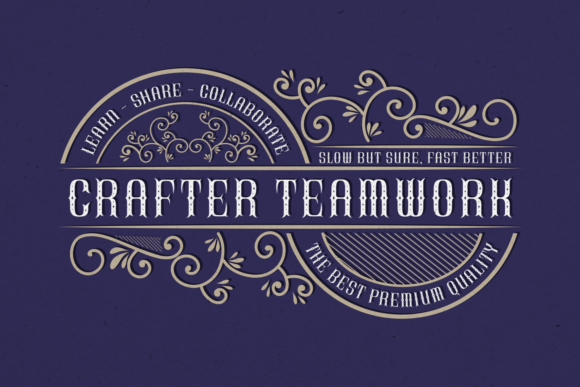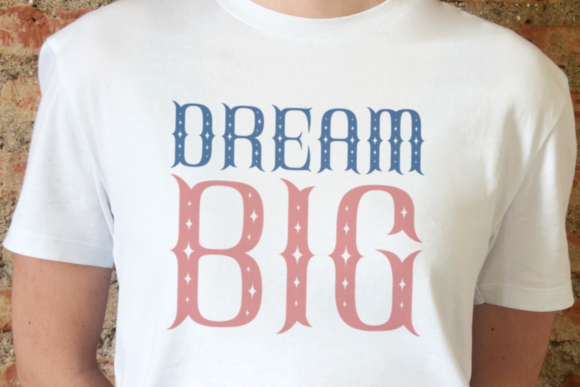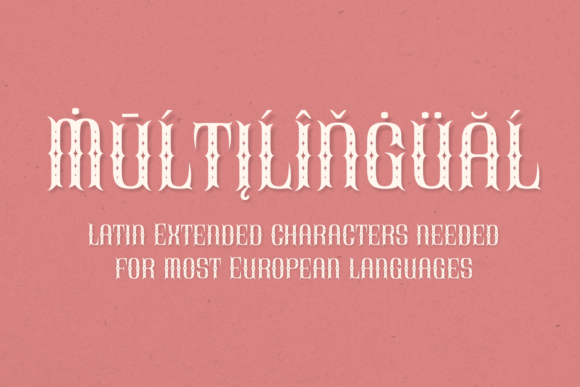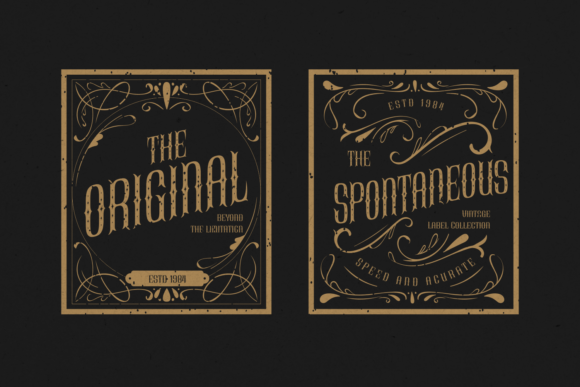
Introduction to Maxonie Font
Have you ever stared at a blank canvas, desperately searching for the perfect font to bring your creative project to life? That’s exactly how I felt until I discovered the stunning Maxonie Font. This bold, cool, and assertive blackletter font is the ultimate game-changer for designers looking to make a statement.
What sets Maxonie Font apart is its versatility and high quality, making it an ideal choice for a wide range of design projects, from posters and flyers to brochures and business cards. Whether you’re working on a free download or a paid design resource, Maxonie Font is sure to impress with its sleek and modern design. Plus, its transparent background allows for seamless integration with any image or design element.
As a valuable addition to any designer’s toolkit, Maxonie Font is a must-have for anyone looking to elevate their creative projects and take their designs to the next level.
Key Features of Maxonie Font
- High-quality font design suitable for creative projects
- Available for free download with a transparent background
- High-resolution design, perfect for use in digital and offline projects
- Maxonie Font is a valuable design resource for designers and artists
- Compatible with most operating systems and software applications
Honest Review: Maxonie Font
I recently came across the Maxonie Font, a free download that’s been gaining popularity among designers. After giving it a try, I’d like to share my thoughts on this design resource.
- The Maxonie Font has a unique, hand-drawn feel that’s perfect for creative projects.
- The font is available in a range of weights, from light to bold, making it versatile for various design applications.
- The transparent background feature allows for easy layering and customization, which is a big plus for designers.
- The high-quality design ensures that the font looks great on both digital and print materials.
- The font may not be suitable for formal or corporate designs, as its playful and casual nature may not align with those styles.
- Some users may find the font a bit too ornate, which could be a drawback for those who prefer more minimalist designs.
Overall, the Maxonie Font is a great addition to any designer’s toolkit. Its unique style and high-quality design make it an excellent choice for creative projects. However, it’s essential to consider the limitations and ensure it aligns with your specific design needs.
Getting the Most Out of Maxonie Font
For the best results, use Maxonie Font with a transparent background, allowing the font to stand out against any design element. Experiment with different font sizes and colors to create visually appealing designs.
Common Use Cases for Maxonie Font
Maxonie Font is suitable for a wide range of creative projects, including social media graphics, presentations, posters, and brochures. Its high-quality design makes it an excellent choice for any project requiring a professional look.